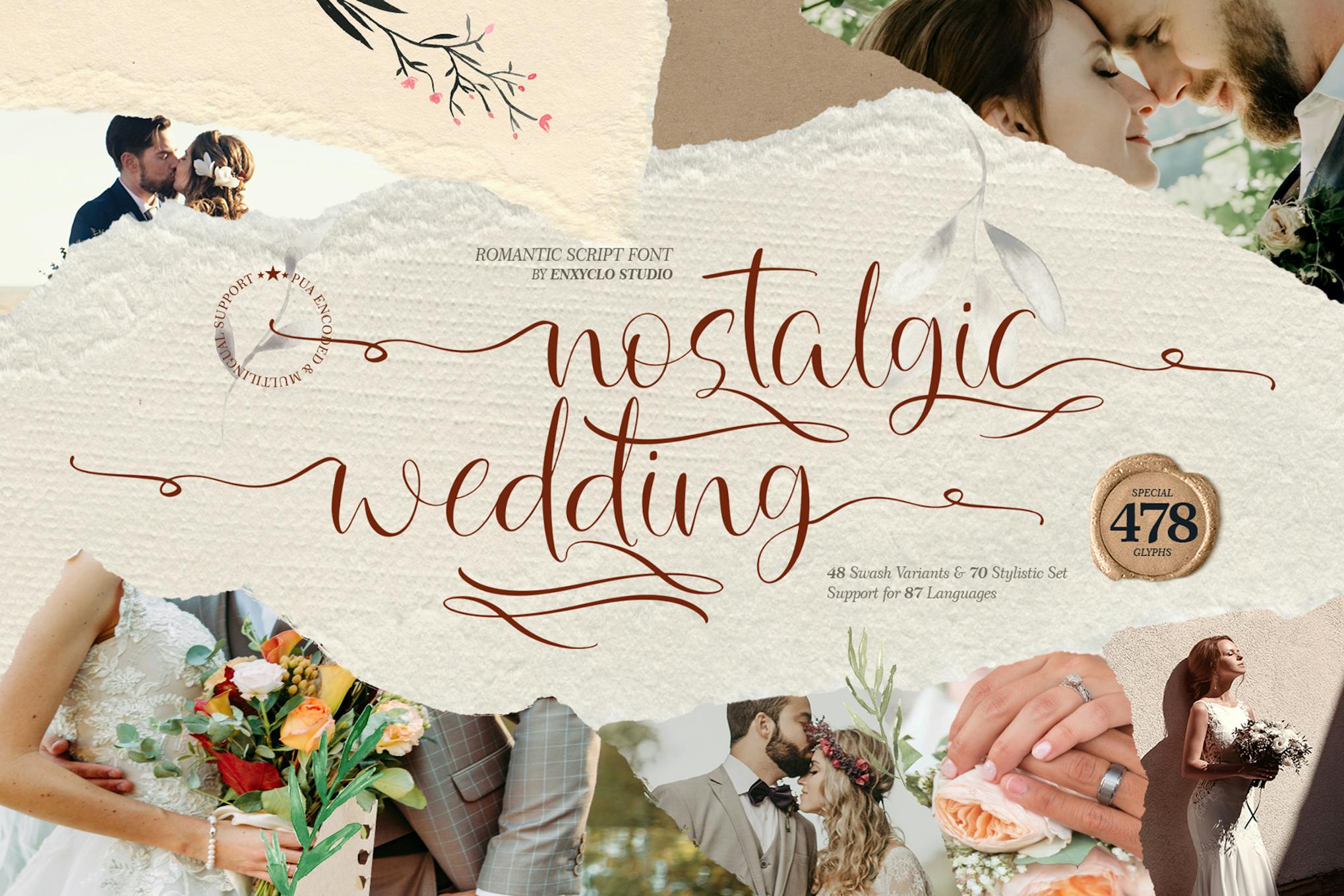
NCL Nostalgic Wedding - Script Romantic Font
The NCL Nostalgic Wedding - Script Romantic Font excels in vintage design applications including nostalgic wedding invitations, romantic bridal branding, vintage ceremony logos, romantic product packaging, nostalgic business cards, vintage portfolios, romantic greeting cards, nostalgic social media graphics, vintage event signage, and romantic marketing materials. Its nostalgic script style makes it perfect for projects requiring vintage elegance that communicates romantic nostalgia and establishes vintage brand positioning with audiences seeking nostalgic wedding experiences and romantic sophistication.
What makes the NCL Nostalgic Wedding - Script Romantic Font truly exciting is its exceptional ability to capture the romantic nostalgia and vintage beauty of yesteryear weddings through lovingly crafted letterforms. The font features flowing, vintage-inspired strokes with romantic flourishes and nostalgic proportions that create a distinctly romantic appearance. Each character displays remarkable attention to vintage detail with romantic curves, nostalgic connections, and vintage spacing that give text a beautifully romantic, hand-lettered quality. The font's nostalgic character and romantic rhythm create an atmosphere of vintage romance while maintaining nostalgic sophistication and wedding authenticity.
The NCL Nostalgic Wedding - Script Romantic Font family typically includes regular weight with extensive character coverage, featuring uppercase and lowercase letters, numerals, punctuation marks, and international characters. The typeface often incorporates stylistic alternates, contextual ligatures, and vintage swashes that enhance its signature romanticism. These additional elements provide designers with creative flexibility to customize text appearance and achieve more natural-looking nostalgic handwriting that reflects the font's romantic and vintage character.
This romantic signature font distinguishes itself through its remarkable balance of nostalgic charm and sophisticated elegance. Unlike modern or contemporary fonts that lack vintage appeal, NCL Nostalgic Wedding - Script Romantic Font embraces the power of romantic design to create nostalgic connections with vintage wedding audiences. The font's romantic character makes it essential for vintage wedding planners, nostalgic brands, and romantic celebration businesses where creating vintage wedding experiences and nostalgic memories is fundamental to success in romantic wedding markets.